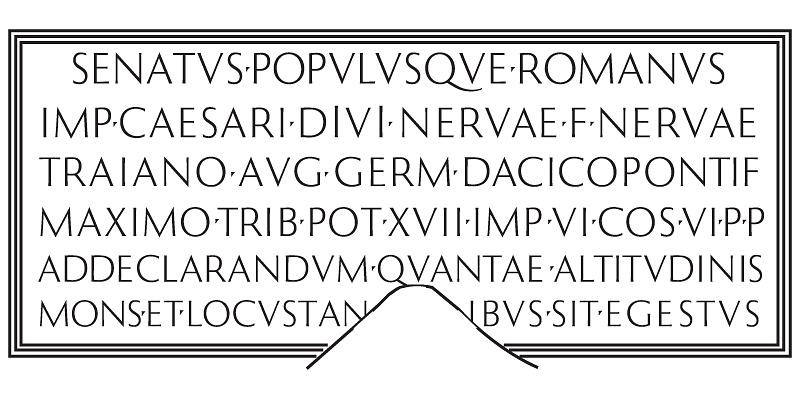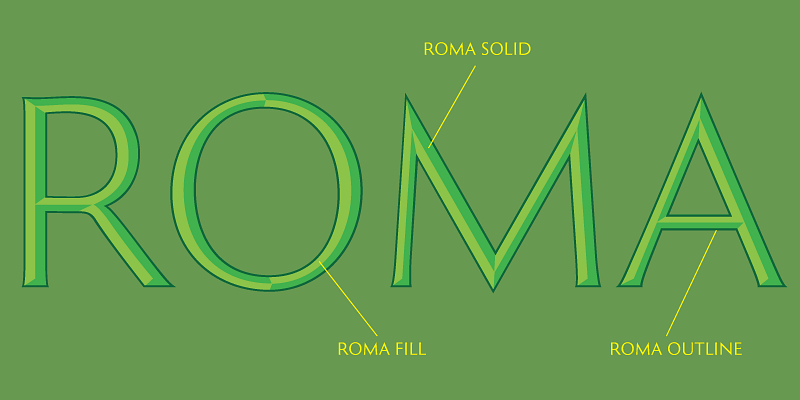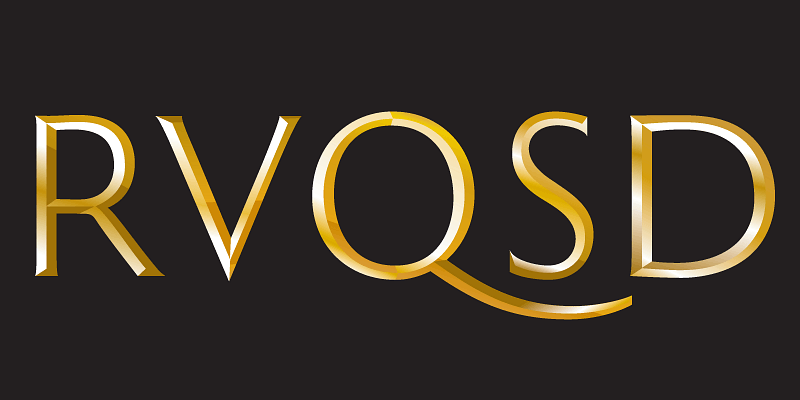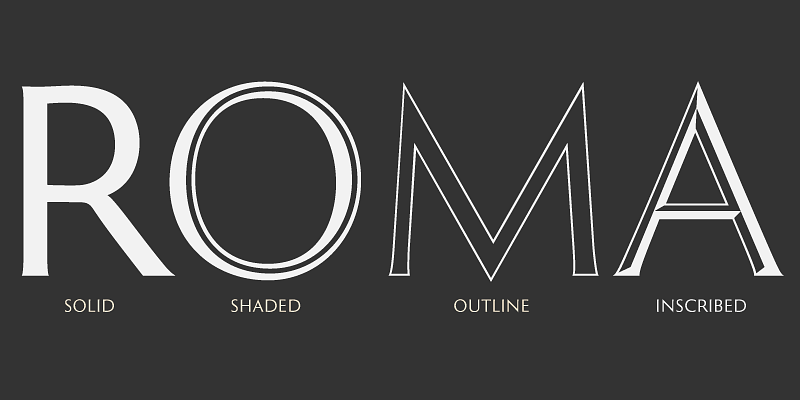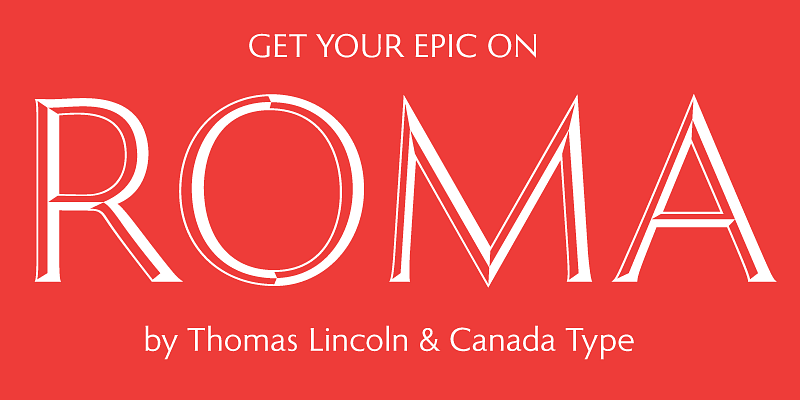
Roma is a mature, contemporary sans serif expression of the Trajan Column majuscules, the subject of a lifelong fascination for Tom Lincoln. Included are minuscule, small caps and quite a few options for chromatic treatments.